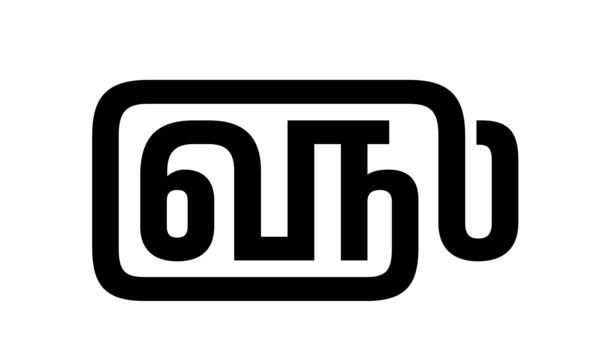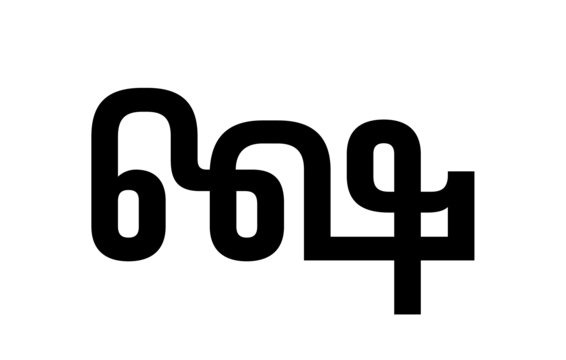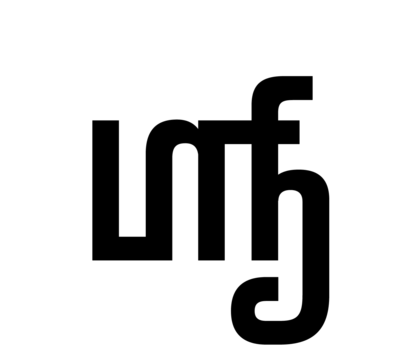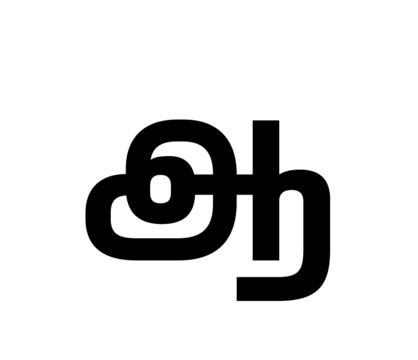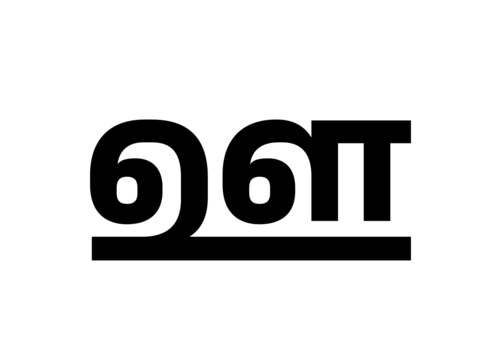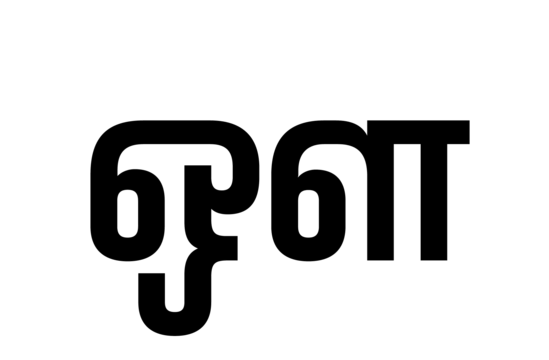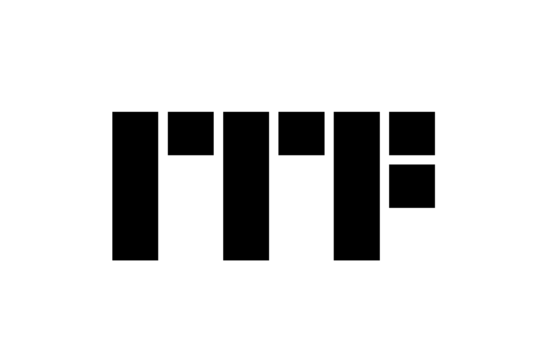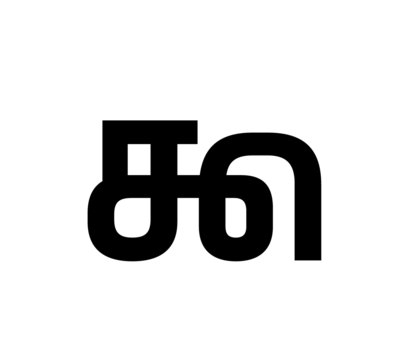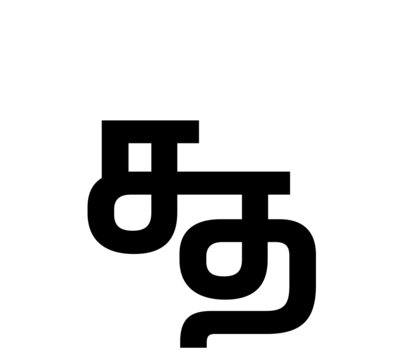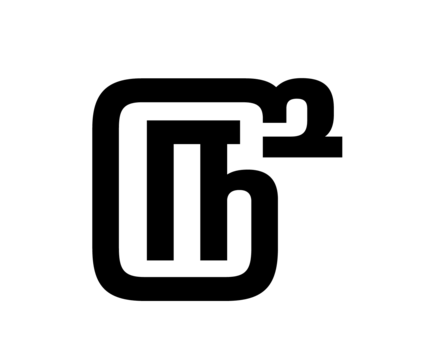
Akhand Tamil is a family of 8 compact mono-linear typefaces and part of the super family Akhand Multiscript. The letterforms are dynamic; typically round shapes appear more compact, as their verticals have been flattened. This ‘straightening out’ gives text set in the typefaces a streamlined look. Akhand Tamil is designed according to a modular system. All shapes bear a strong commonality to each other, without becoming repetitive. However, the curves in the modules have all been optically corrected, removing the mechanical nature that would otherwise become too dominant.
The Akhand Tamil family includes eight font styles. This broad range of weights makes combinations with a strong degree of contrast possible; the lightest and the heaviest styles may be mixed to create a powerful effect in your design. Each font style contains 285 glyphs, offering full support for conjuncts and ligatures.
Designer(s) Jonny Pinhorn
Available Style Extralight, Light, Semilight, Regular, Semibold, Bold, Extrabold, Black
Classification Sans, Display